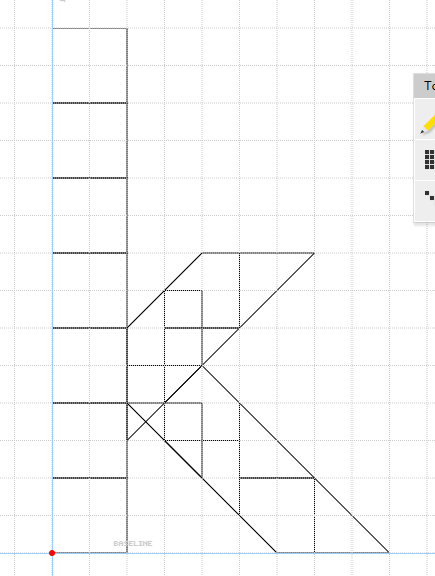
• A linear sans typeface with strokes, inspired by the Chicago font.
Suggestions for redesigning the characters are welcome (if needed or necessary).
Grid Base:   6x4 (px)
Thickness:  Linear: 0.5 (px);   Stroke: 1 (px)
Might I suggest this lowercase k? I made the diagonals a bit thicker to make it approximately the same width as the vertical stem
@BWM Good suggestion but the thickened diagonals on both stems in your sample might not fit the character since at least a linear stem is required on most characters, which is what I’m having trouble with designing the “k” (in which case the linear stem is the upper diagonal line). Although I did modified it so it looks somewhat similar to your sample.